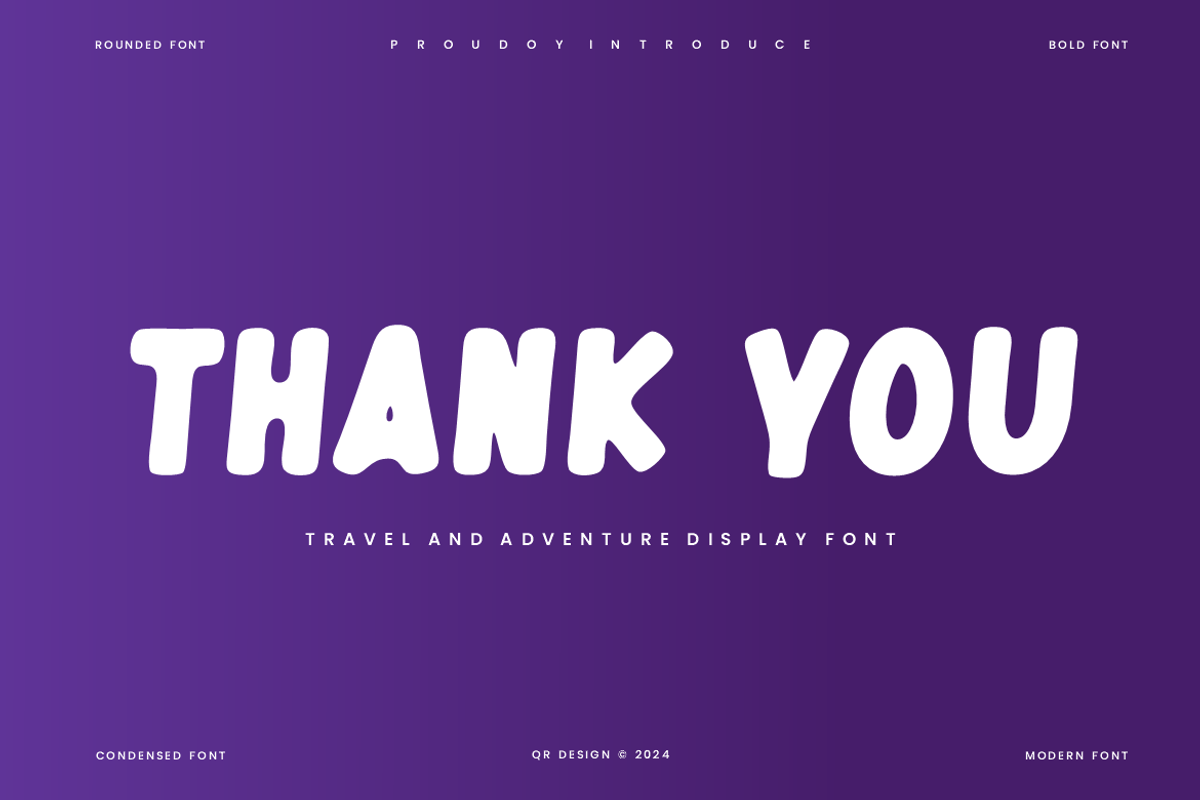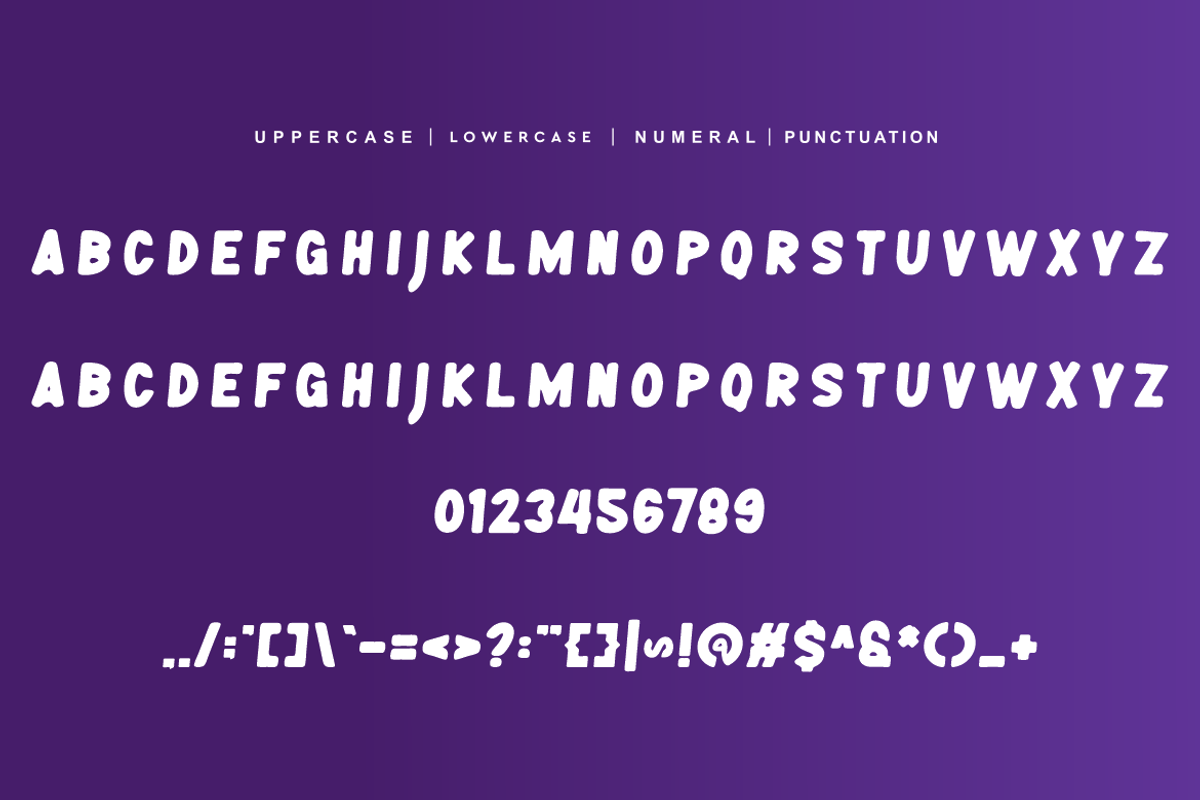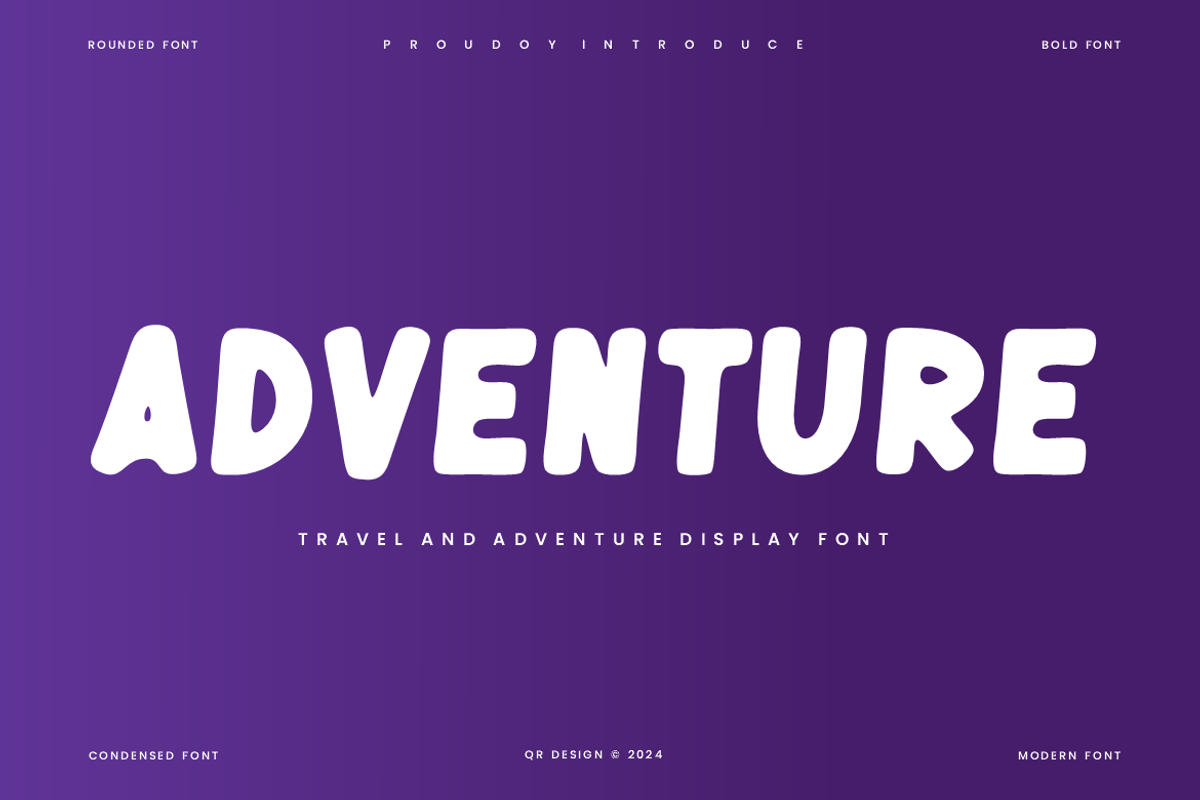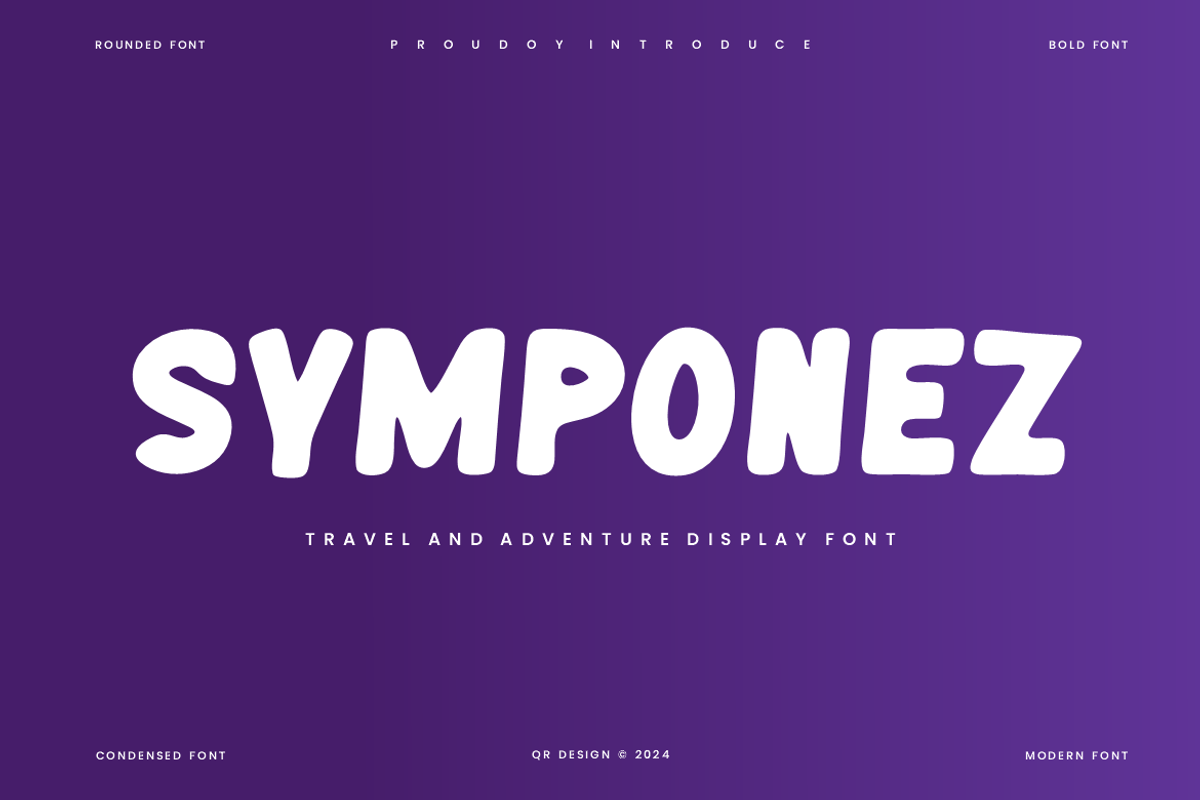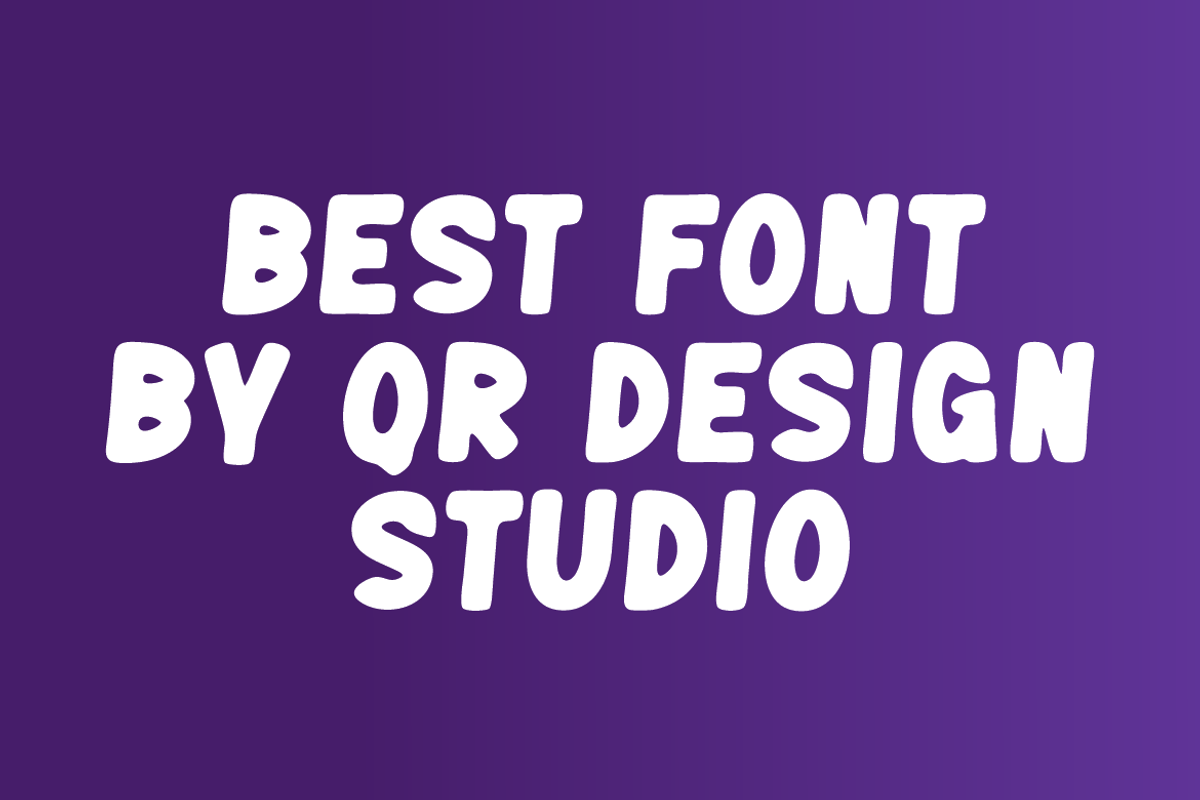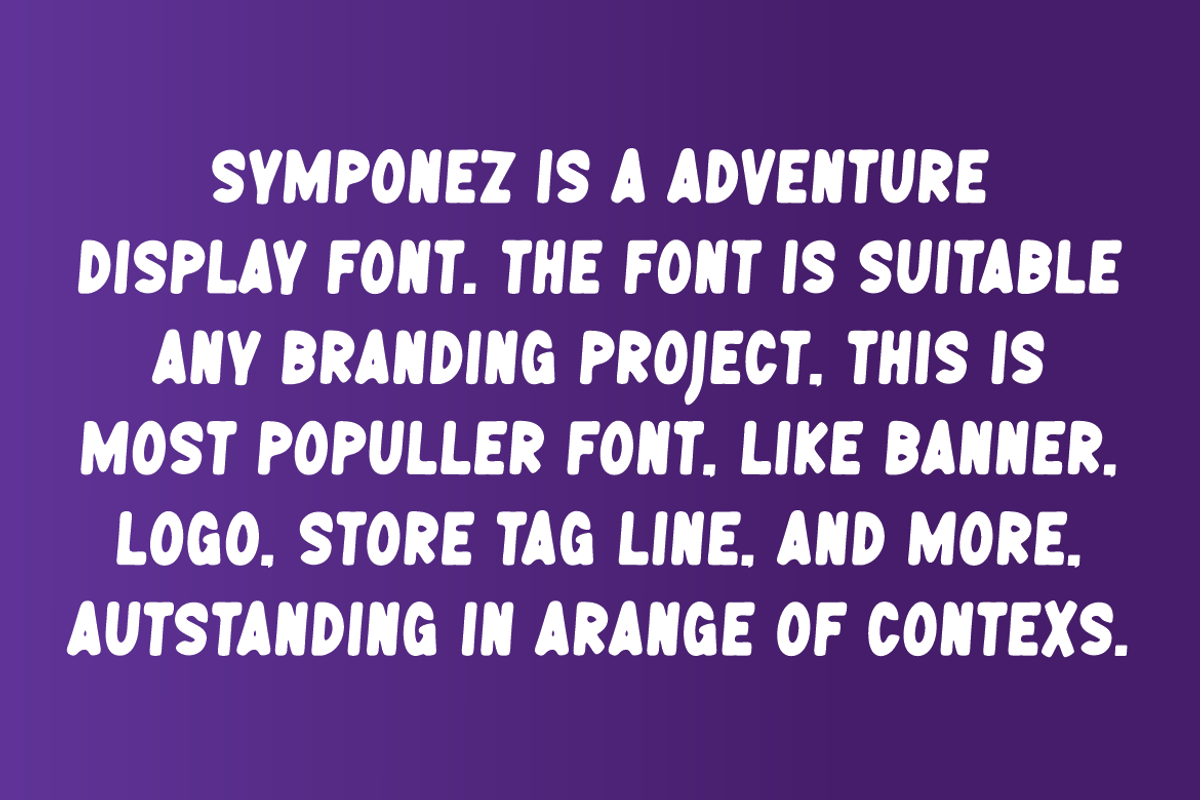
Symponez - Adventure Display Font
Symponez - Adventure Display Font is a bold and authentic display font. The font is suitable for any branding project like poster, logo, sport, and many more. Outstanding in a wide range of contexts.